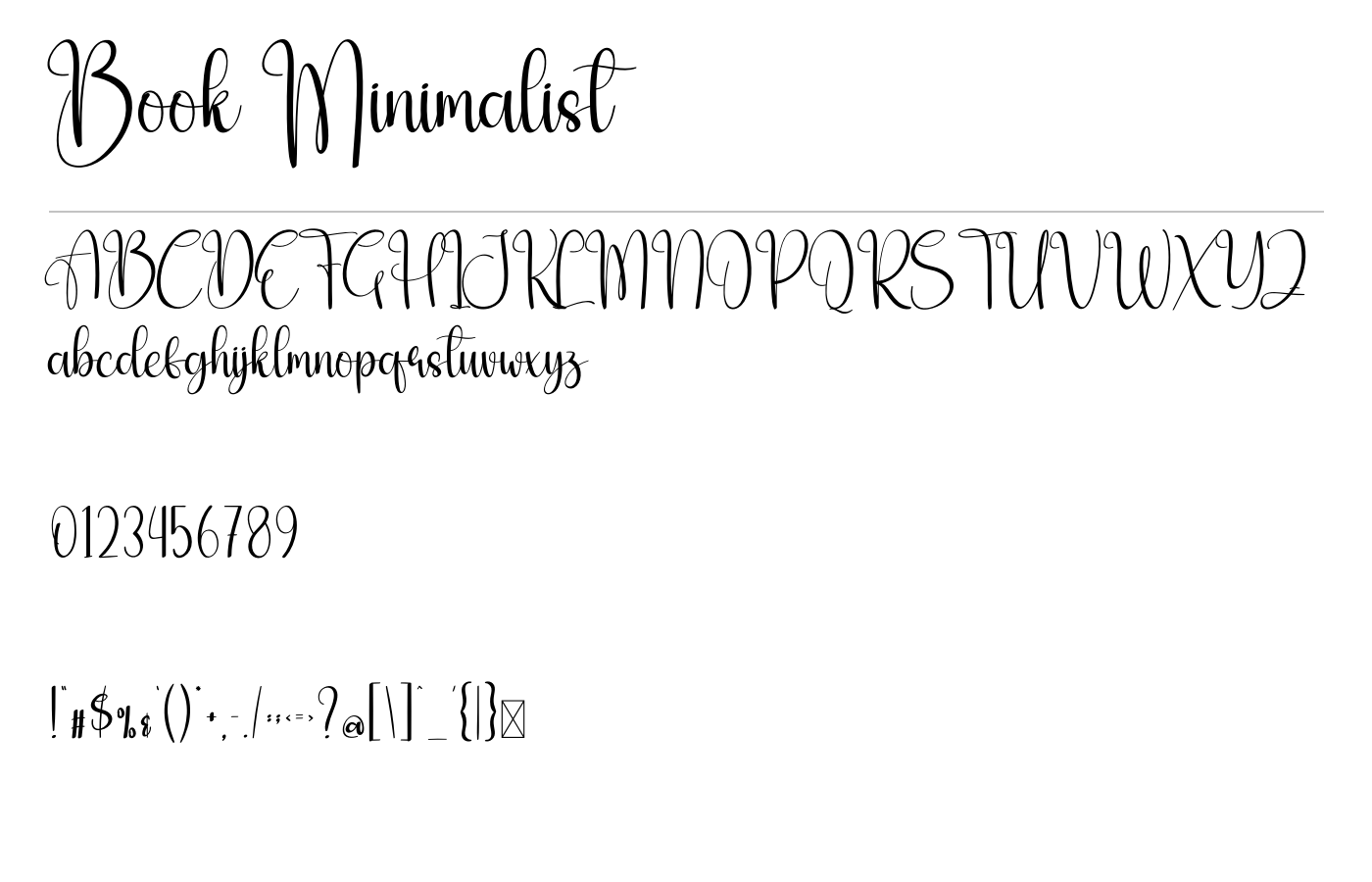
Book Minimalist is a delicate script font with thin, flowing strokes that create an elegant and airy feel. Its tall x-height, slender letterforms, and graceful curves make it perfect for sophisticated branding, invitations, and stylish editorial headlines. This font brings a modern, feminine charm to any design, balancing refinement with a playful touch.
Book Minimalist Font
About Book Minimalist Font